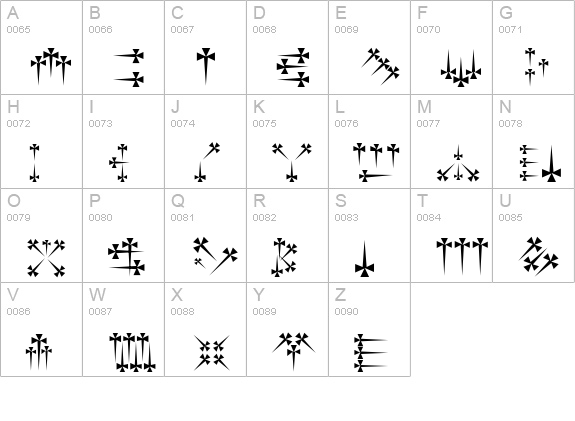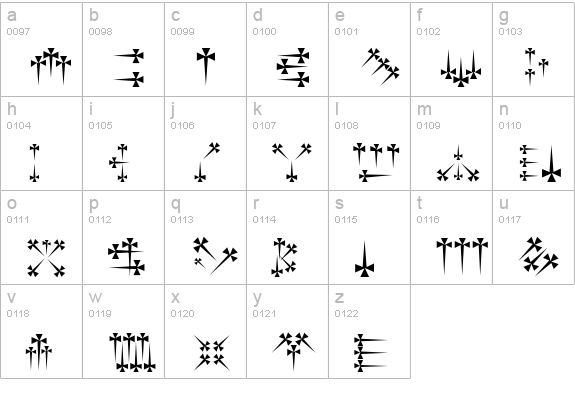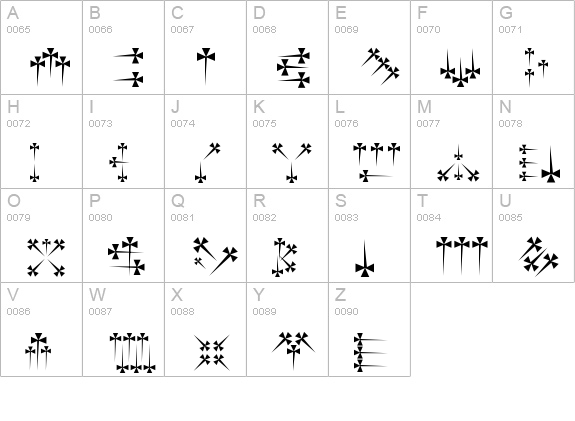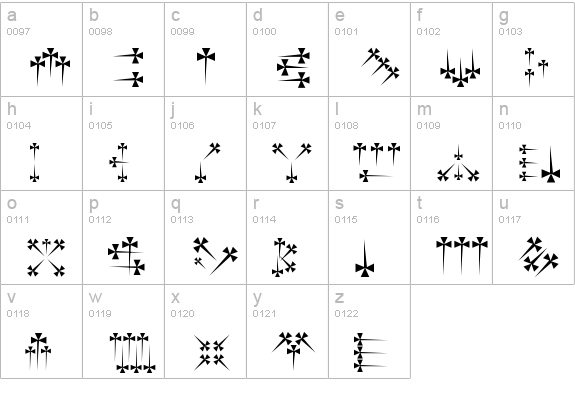
Daggers Regular Font Details
Daggers Regular is the standard, neutral variant in the Daggers typeface family \xE2\x80\x94 well suited to general body text, paragraphs, and standard typographic work.
Daggers Regular font is a sleek and modern typeface designed for a wide range of design projects. With its sharp and elegant look, Daggers Regular is perfect for creating eye-catching headlines, logos, posters, and more. This versatile font features clean lines and a contemporary style that will add a touch of sophistication to any design. And the best part? Daggers Regular font is completely free to download at FontsMarket.com. So whether you're a professional designer or just getting started with your creative projects, you can easily access this stylish font without breaking the bank. Don't miss out on the opportunity to enhance your designs with Daggers Regular – download it for free today at FontsMarket.com!